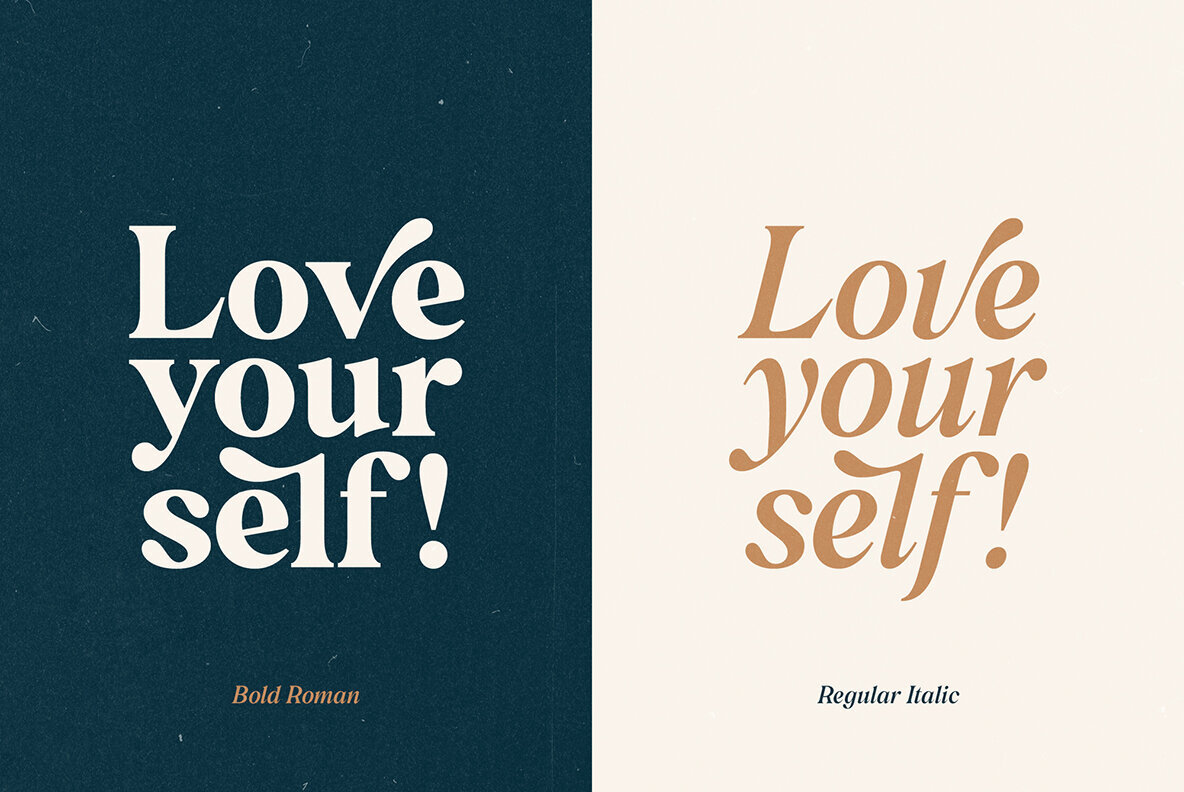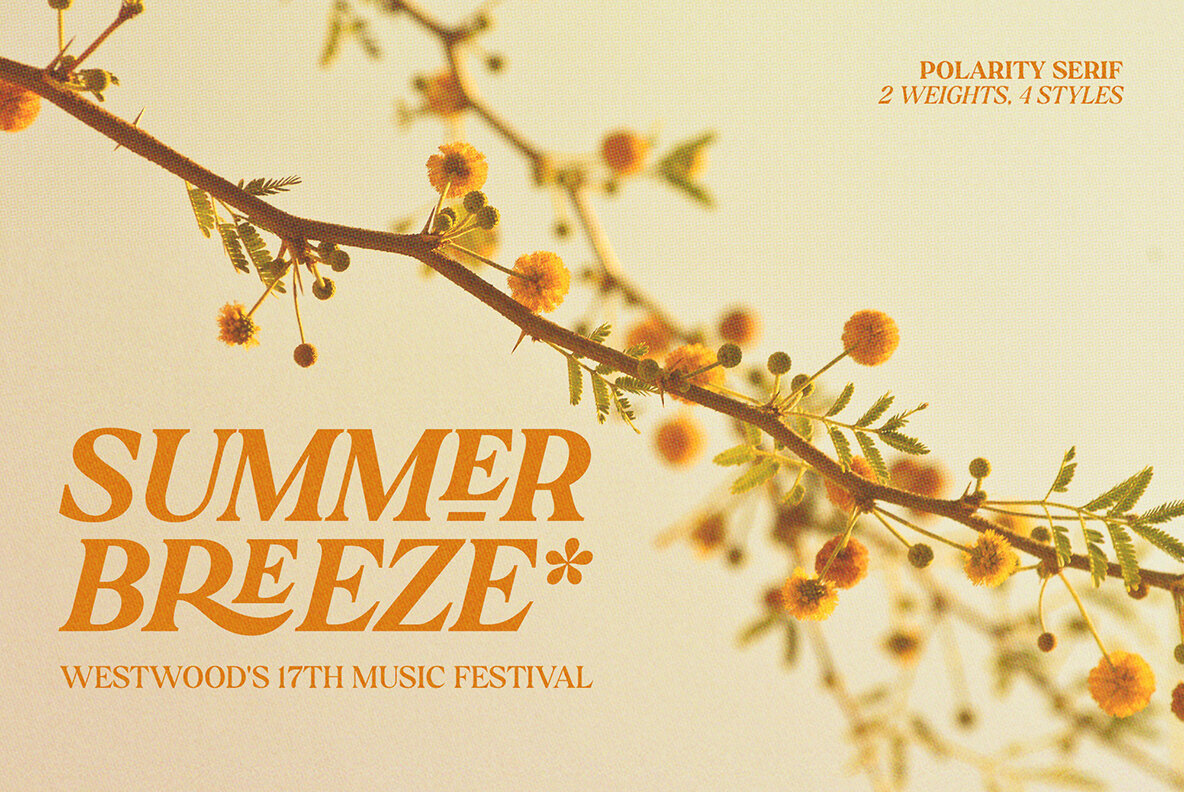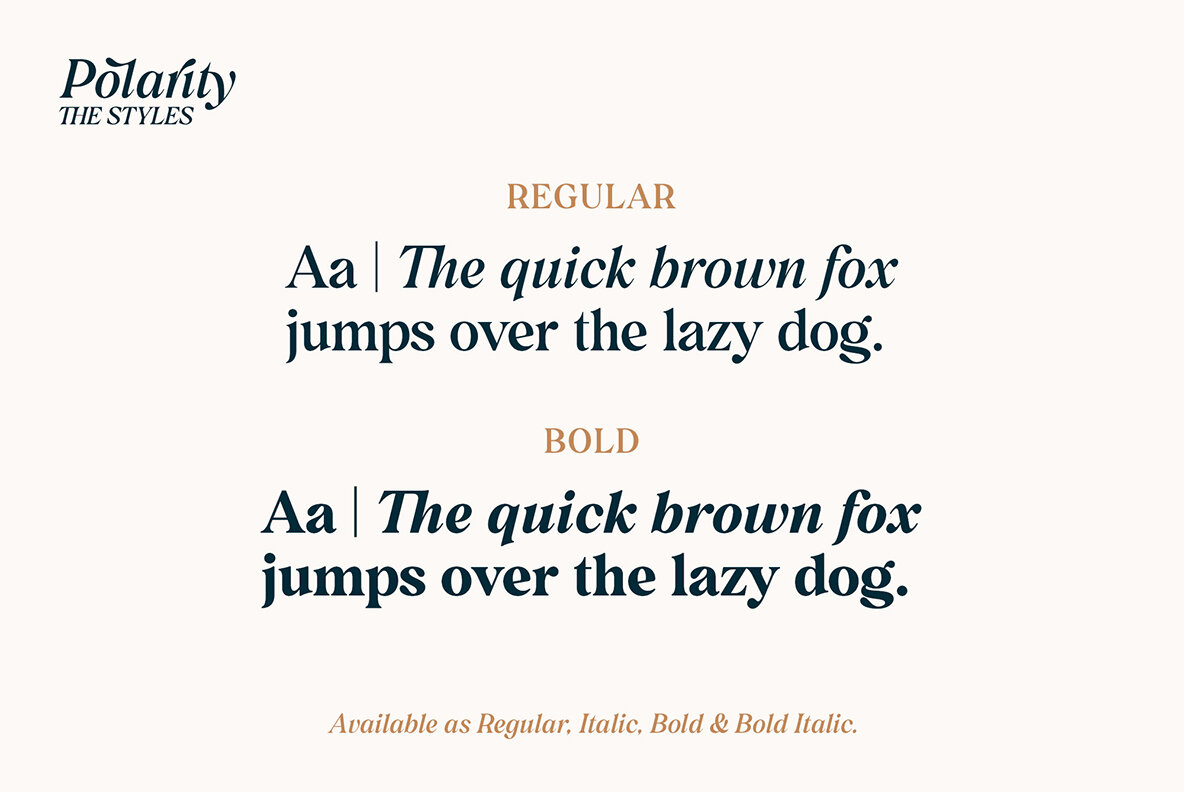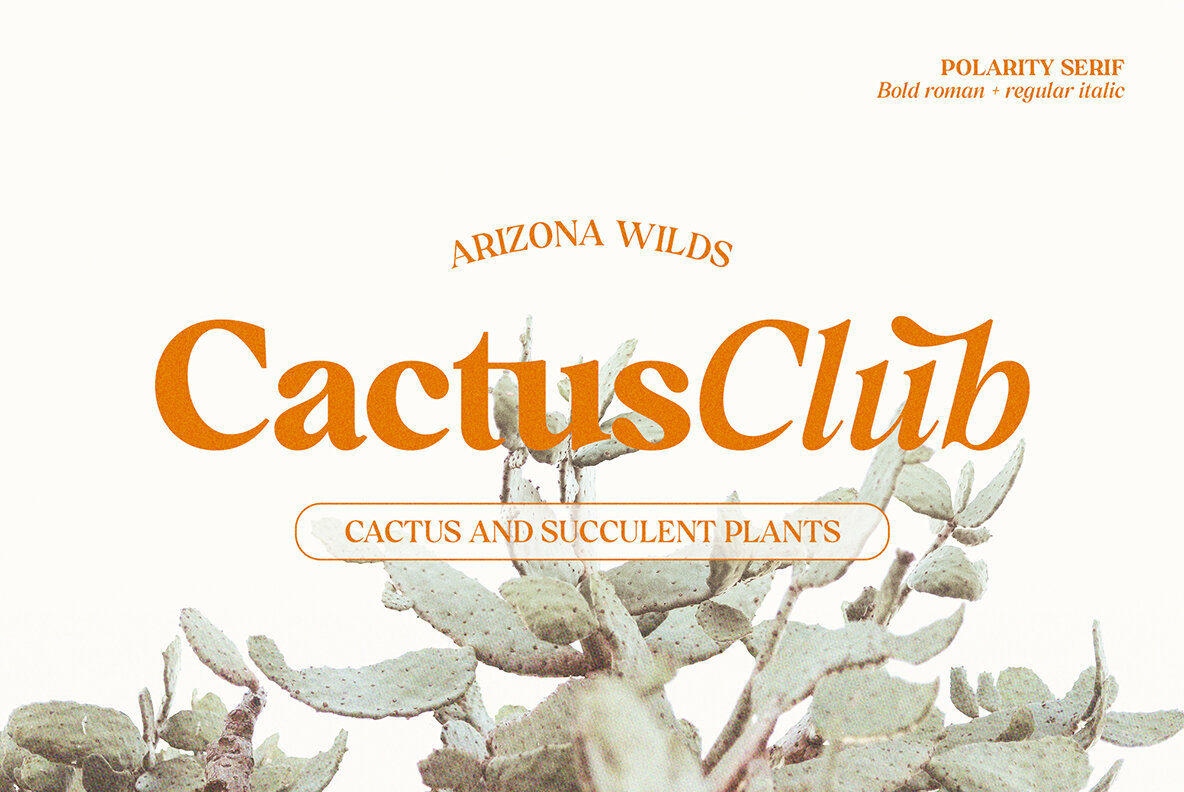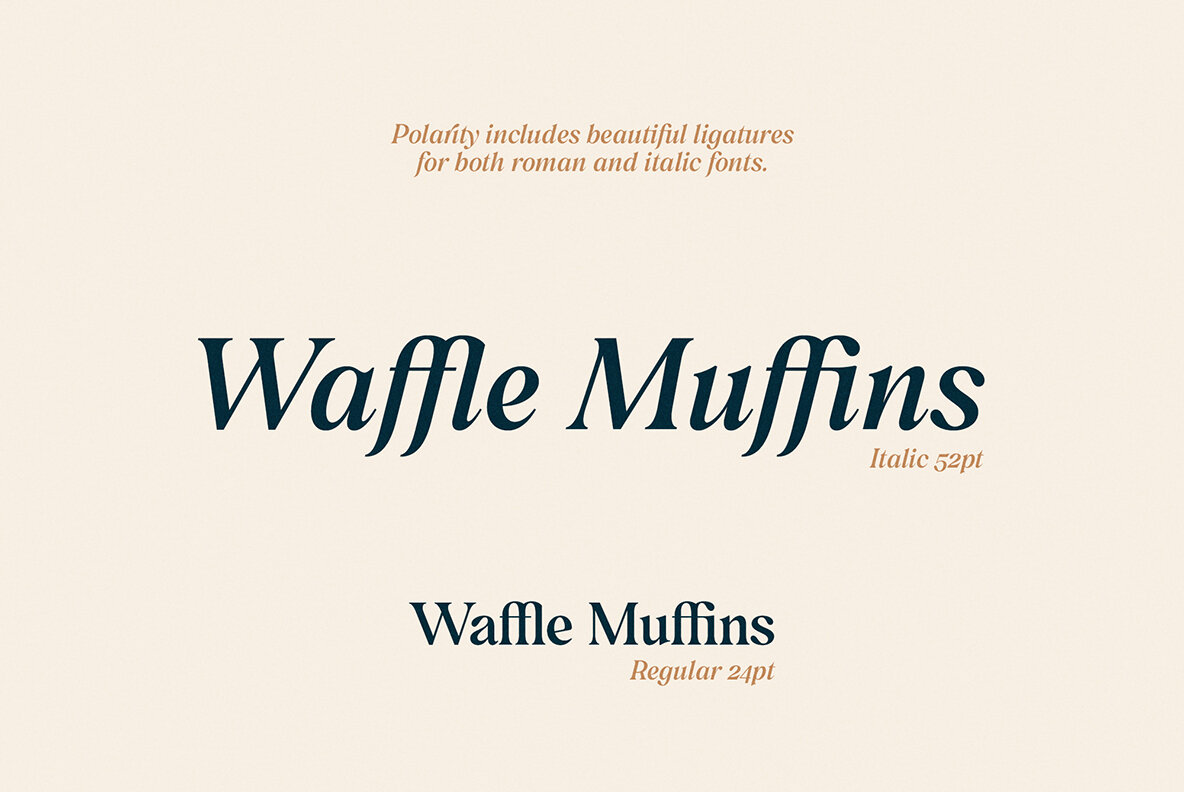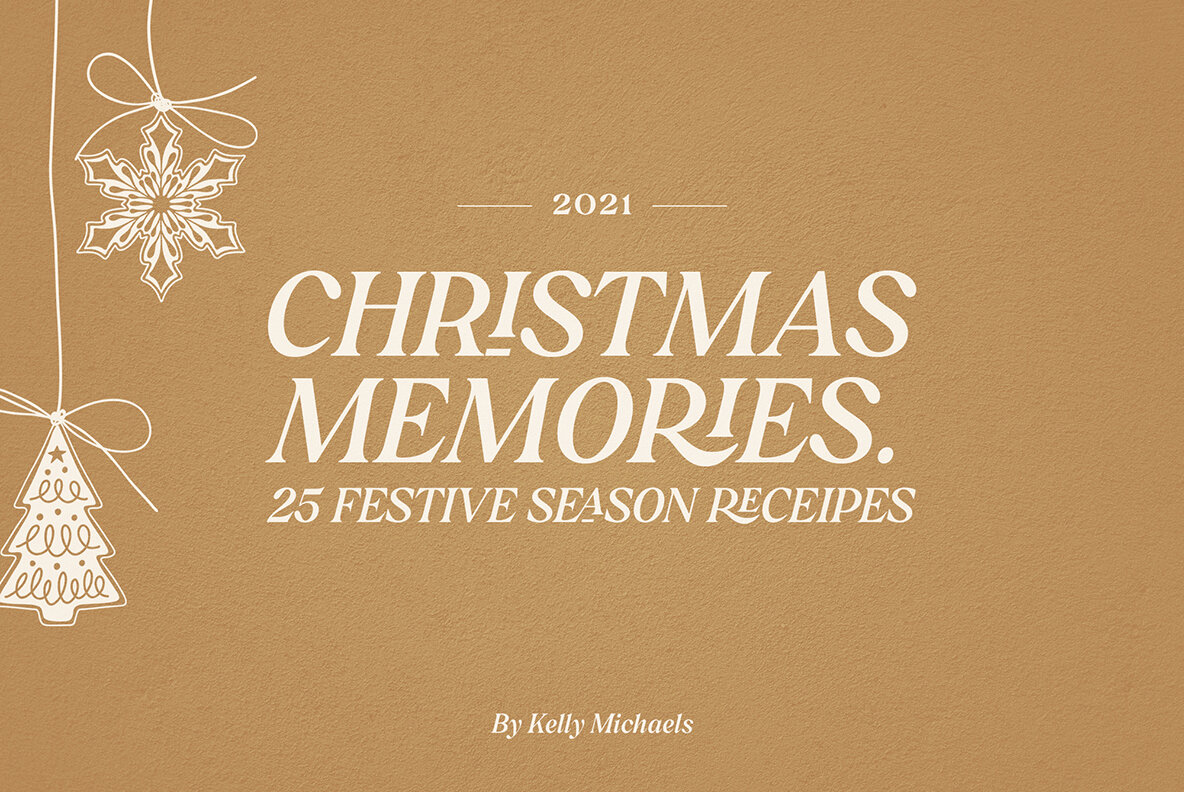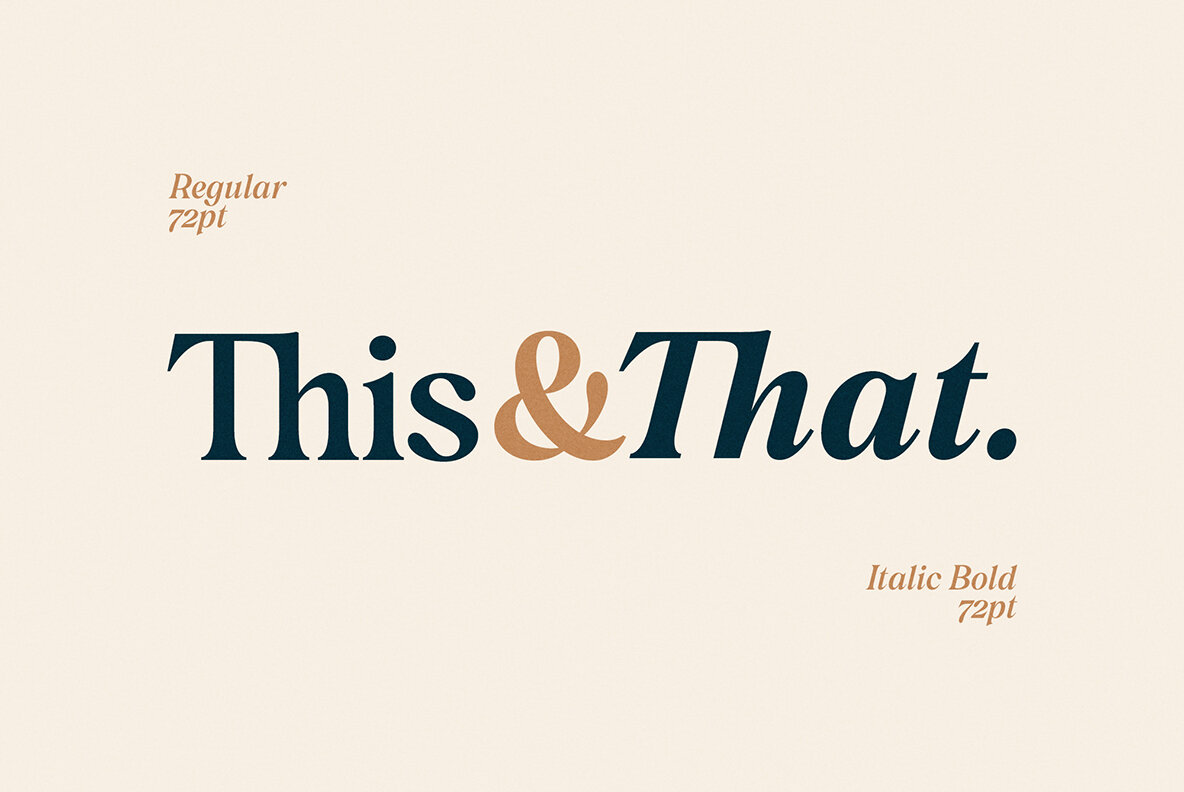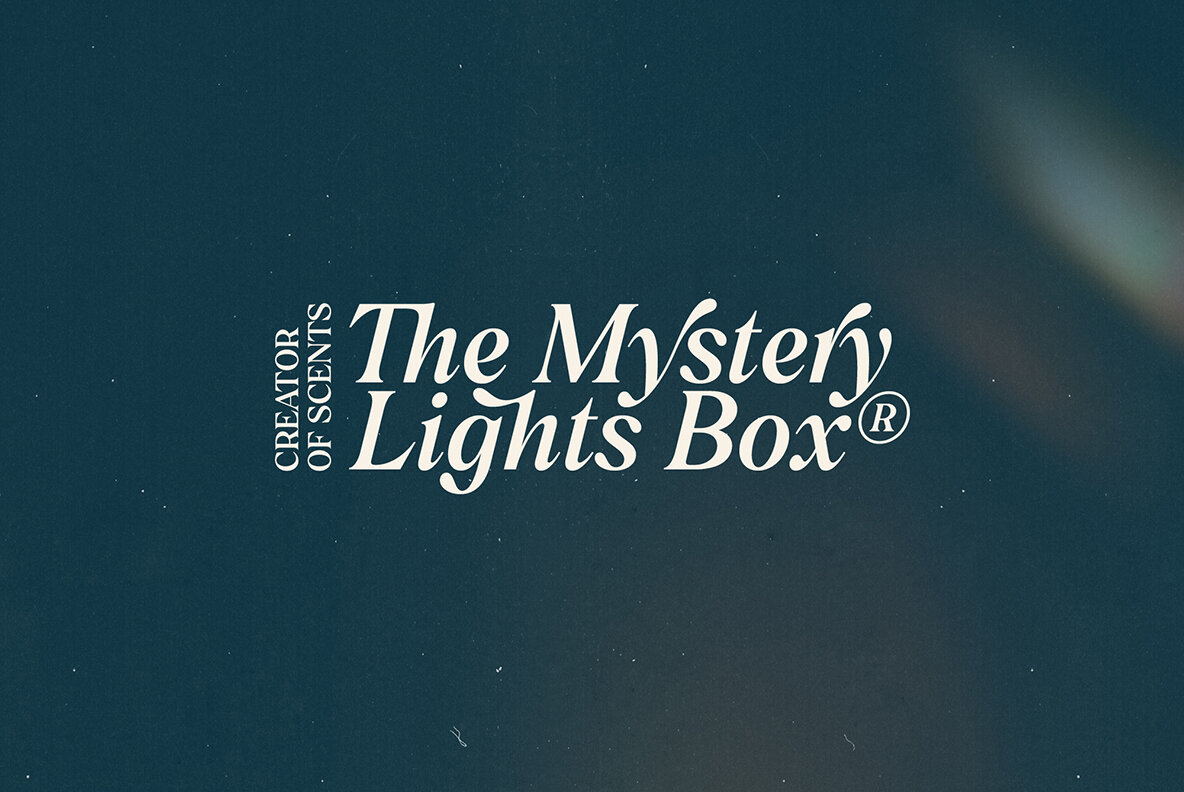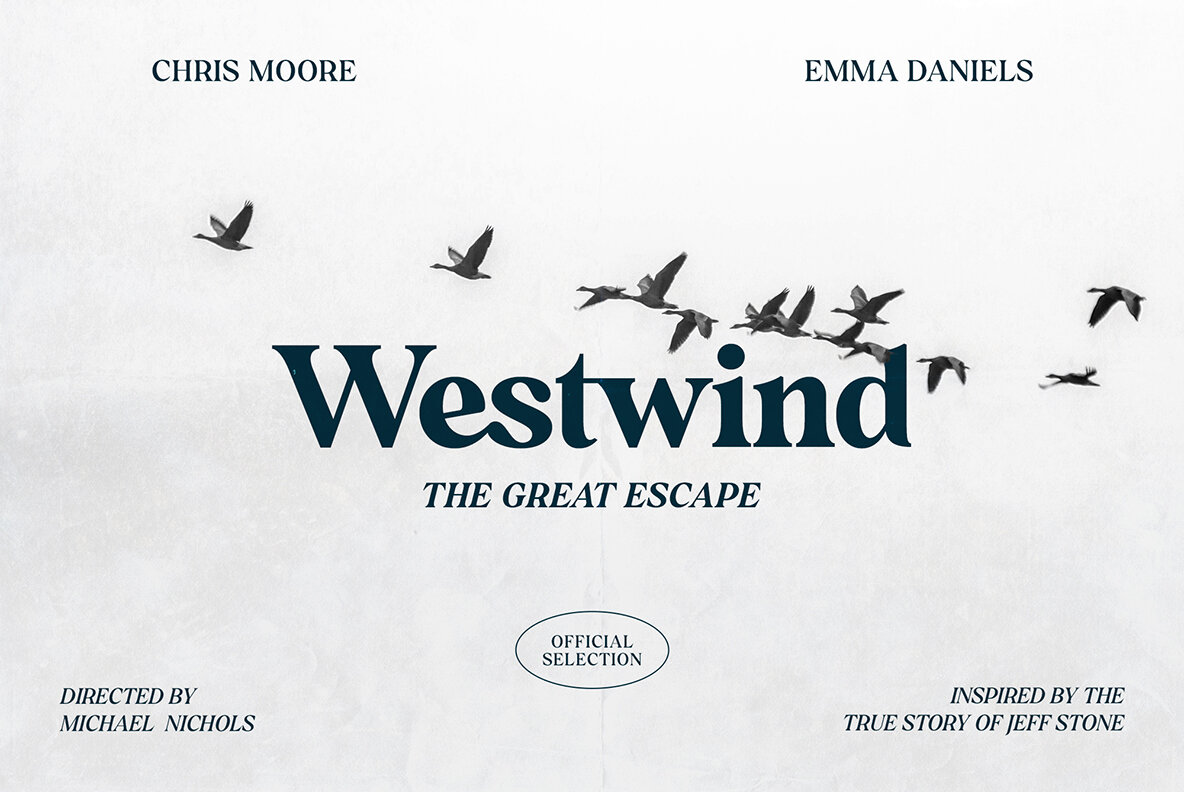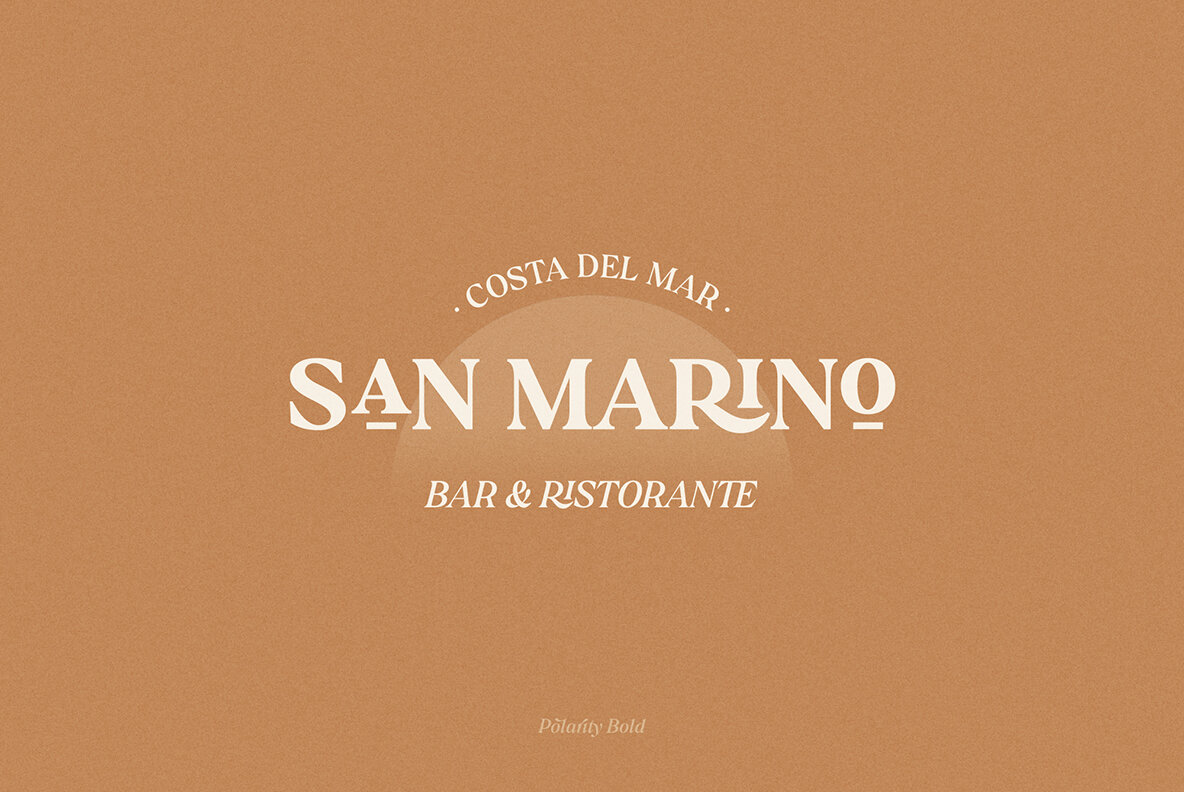
Polarity Font
Polarity is a serif typeface with a touch of retro flair. It exudes a classic charm that effortlessly captures the essence of vintage typography. Its 2 styles, a roman and an italic compliment each other gracefully, each one with its own unique personality. While the roman is bold and modern, the true italic gives an elegant refined look for a perfect combination that’ll make your creations truly unique. Each character has been meticulously crafted to achieve a harmonious balance between smooth curves and sharp angles. Thanks to the numerous alternates, stylish ligatures and swash letters, the font family offers countless options and shows great versatility whether you're designing a logo, crafting a vintage-inspired poster, or creating eye-catching headlines. With 2 weights (regular and bold) and 2 styles - 4 fonts in total, the type family is equipped with various opentype features such as stylistic alternates, beautiful ligatures, additional symbols, old styles figures and multilingual support for major latin based languages.